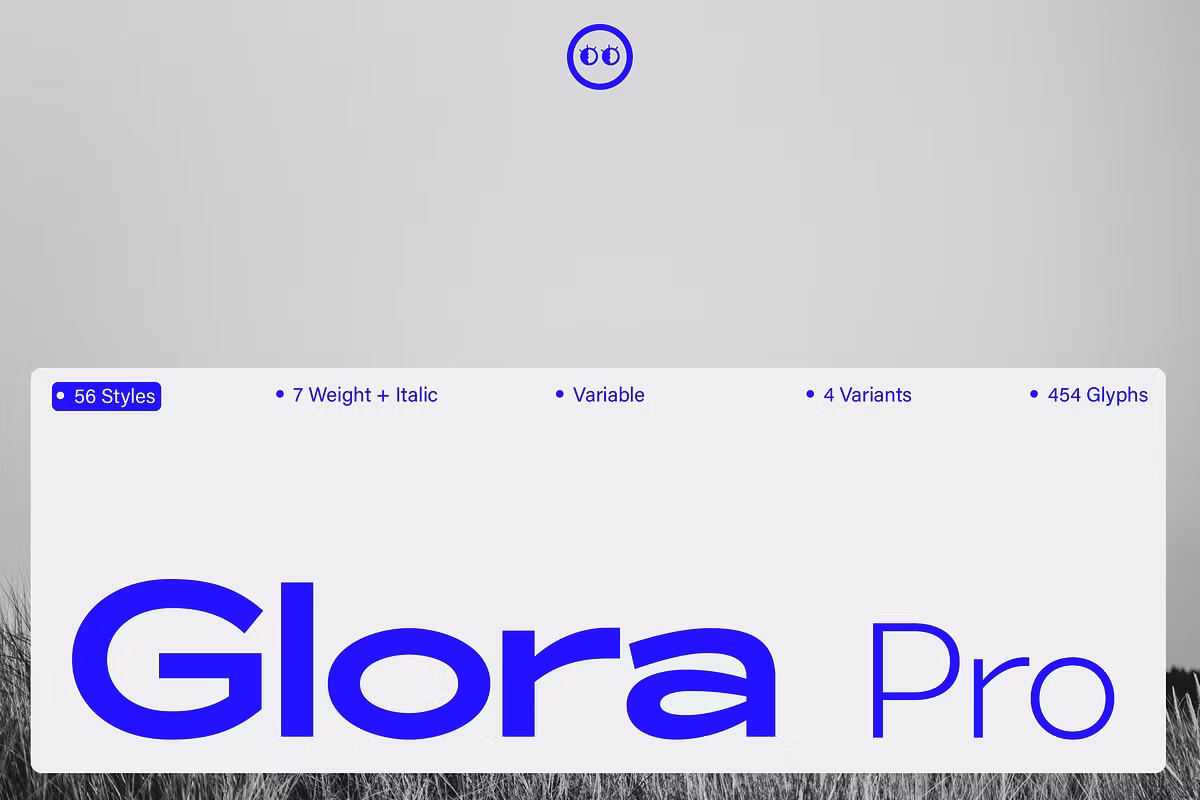
ZT Glora Pro – Variable / 56 Fonts Free Download is a premium, high-performance type system offering unmatched versatility and modern style. With 56 fonts ranging from ultra-thin to extra-bold and variable capabilities, ZT Glora Pro is ideal for branding, editorial design, UX/UI, corporate identity, and print layouts.
Its clean, geometric structure and refined letterforms ensure top-tier readability and visual harmony across every weight. Whether you're creating minimalist websites, powerful headlines, or elegant magazine spreads, this font family adapts seamlessly to any design need.